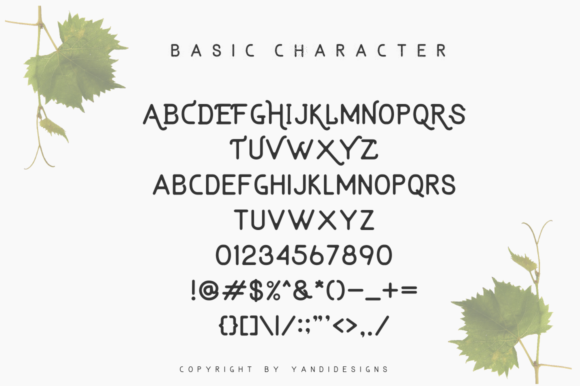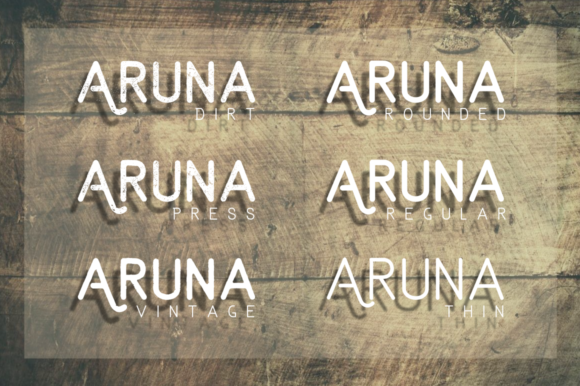
As designers, we’ve all been there – staring at a blank canvas, waiting for inspiration to strike. And then, it happens. A spark of creativity ignites, and the ideas start flowing. For many of us, this moment is what drives us to create something truly remarkable. Whether it’s a logo, a book cover, or a product presentation, the right font can make all the difference.
Enter the Aruna Font, a tasteful sans serif font designed to bring your future designs to life. With its versatility and wide range of applications, the Aruna Font is the perfect addition to any designer’s toolkit. Its clean lines and elegant design make it an invaluable resource for creatives looking to elevate their work and make a lasting impression.
Aruna Font Key Features
- Font Family: Aruna is a sans-serif font family with a modern and clean design.
- Character Count: The font family includes a wide range of characters, including Latin, Cyrillic, and Greek scripts, with over 900 glyphs.
- Unique Characteristics: Aruna features a unique blend of geometric and organic shapes, creating a distinctive and modern aesthetic that is both versatile and sophisticated.
Aruna Font Review
I’ve had the chance to work with the Aruna Font, and here’s my honest take on it. ✨ One thing that works really well is its unique blend of traditional and modern elements. The font’s intricate details and ornate flourishes make it perfect for adding a touch of elegance to your designs. The font also comes in a variety of weights, which is a definite plus for designers who like to experiment with different typography styles.
Another thing I appreciate about Aruna Font is its versatility. It works well in both digital and print contexts, and can be used for a wide range of projects, from branding and packaging to editorial and display typography.
- ⚠️ The font can be a bit too ornate for some projects, and may not be suitable for designs that require a more minimalist or clean look.
- ⚠️ Some users may find the font’s complex details a bit difficult to read at smaller sizes.
- ⚠️ The font’s OpenType features can be a bit tricky to work with, especially for designers who are new to using advanced typography features.
Overall, I think the Aruna Font is a solid choice for designers who want to add some visual interest to their projects. While it may have some limitations, its unique style and versatility make it a great addition to any designer’s toolkit.
Tips for Getting the Most Out of Aruna Font
- Use Aruna Font for headings and titles to add a touch of elegance and sophistication.
- Pair Aruna Font with other fonts to create a unique and visually appealing design.
- Experiment with different font sizes and styles to create a dramatic effect.
Common Use Cases for Aruna Font
Aruna Font is commonly used for:
- Wedding invitations
Alternatives to Aruna Font for Designers
Lato is a popular sans-serif font that is highly legible and versatile. It is ideal for use in digital design, such as websites and mobile apps, due to its clean and modern appearance. Lato is a great alternative to Aruna Font for designers who want a more neutral and professional look.
Lato and Aruna Font share similar characteristics, such as a sans-serif design and clean lines, but Lato has a more rounded and friendly feel. Lato is also more widely available and has better support for various languages.